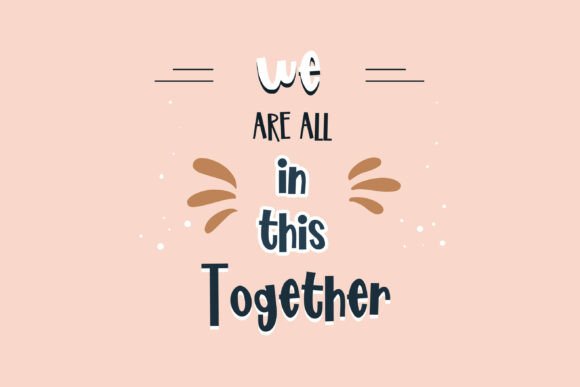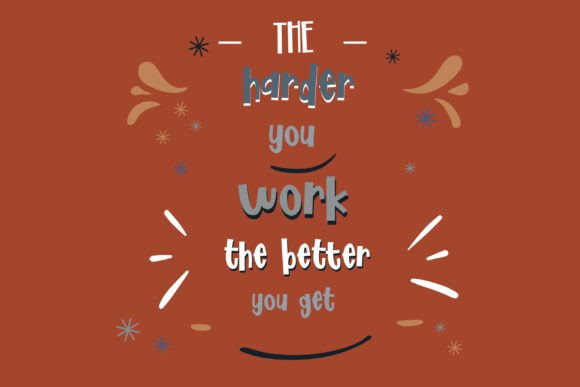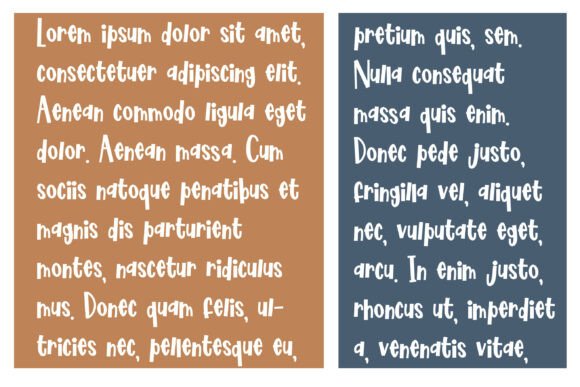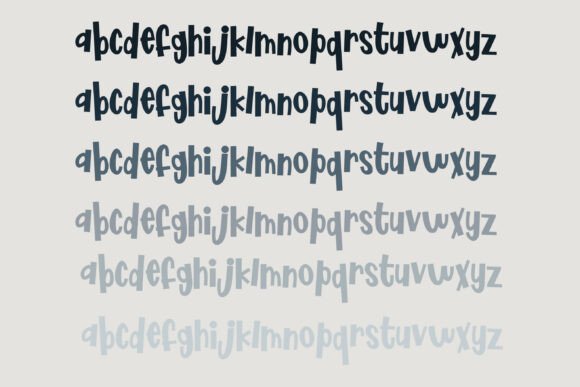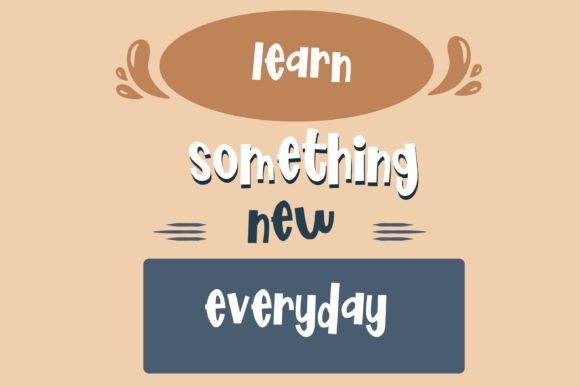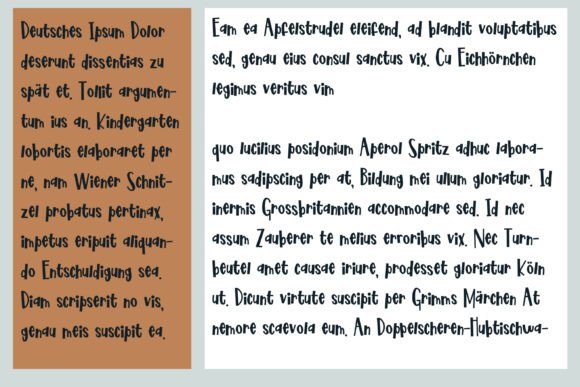
Discover the Earthy Charm of Collinger Font: Elevate Your Designs with a Hand-Touched Sans Serif
In the world of typography, few fonts manage to capture the essence of handmade authenticity while still conveying a sense of professionalism. Collinger Font is one such unique typeface that brings an earthy, hand-touched charm to your designs. This crafty sans serif font is perfect for designers and crafters looking to infuse their work with a friendly, human-centric warmth and an air of artisanal beauty.
The Distinctive Features of Collinger Font
Collinger Font stands out with its organic, slightly irregular letterforms that evoke the feeling of a handwritten journal or a creative workshop sketch. Unlike traditional sans serif fonts, Collinger’s friendly, upright posture and soft terminals give it a distinctive, approachable vibe. This makes it an extraordinary choice for various design projects, from artisanal product labels and cozy boutique branding to spiritual or mystical-themed graphics and high-energy social media headers.
Why Choose Collinger Font?
So, what makes Collinger Font a great addition to your typography arsenal? Here are a few compelling reasons:
- Authentic Hand-Touched Feel: Collinger’s slightly irregular letterforms give it a genuine, hand-crafted feel that resonates with audiences looking for authenticity.
- Versatility: Whether you’re working on branding for a crafty boutique, labels for artisanal products, or graphics for spiritual or mystical themes, Collinger adapts seamlessly.
- Professional yet Warm: It strikes the perfect balance between professionalism and warmth, making your designs feel both curated and approachable.
- Social Media Friendly: Its high-energy vibe makes it perfect for social media headers that need to capture attention and convey a sense of creativity.
Applications of Collinger Font
The versatility of Collinger Font means it can be used in a wide range of design applications. Here are some ideas to get you started:
- Artisanal Product Labels: Give your products a personal touch with labels that feel handmade and unique.
- Cozy Boutique Branding: Create a welcoming and intimate brand atmosphere that invites customers in.
- Spiritual or Mystical-Themed Graphics: Add a layer of depth and meaning to your graphics with a font that feels both earthy and spiritual.
- Social Media Headers: Stand out on social media platforms with headers that are not only visually appealing but also carry a story of authenticity.
Tips for Using Collinger Font Effectively
To make the most of Collinger Font, consider the following tips:
- Pair with Contrasting Fonts: Use Collinger as a headline font and pair it with a more traditional sans serif or serif font for body text to create visual interest.
- Experiment with Colors: Earth tones and pastel colors complement Collinger’s hand-touched feel, but don’t be afraid to experiment with bold colors for a more modern look.
- Play with Textures: Add an extra layer of depth to your designs by incorporating textures that echo the organic feel of Collinger.
Collinger Font offers a unique blend of authenticity, versatility, and charm that can elevate your designs to a new level. Whether you’re a designer looking for a font that speaks to your audience on a personal level or a crafter aiming to highlight the handmade quality of your products, Collinger is an excellent choice. By incorporating this crafty sans serif font into your projects, you ensure that every word feels intimate, curated, and imbued with a sense of legendary artisanal beauty.
So, why settle for ordinary fonts when you can infuse your designs with the earthy, hand-touched charm of Collinger? Explore the possibilities and let your creativity shine with a font that truly understands the value of human-centric warmth and authenticity.